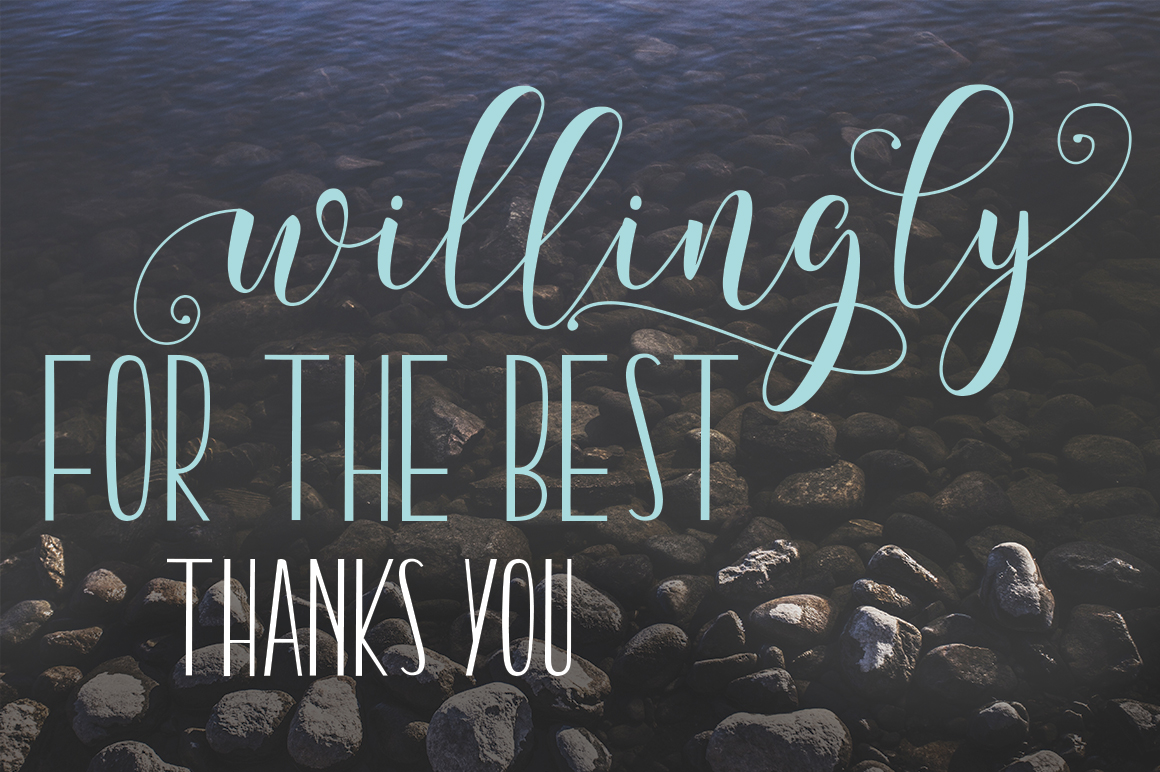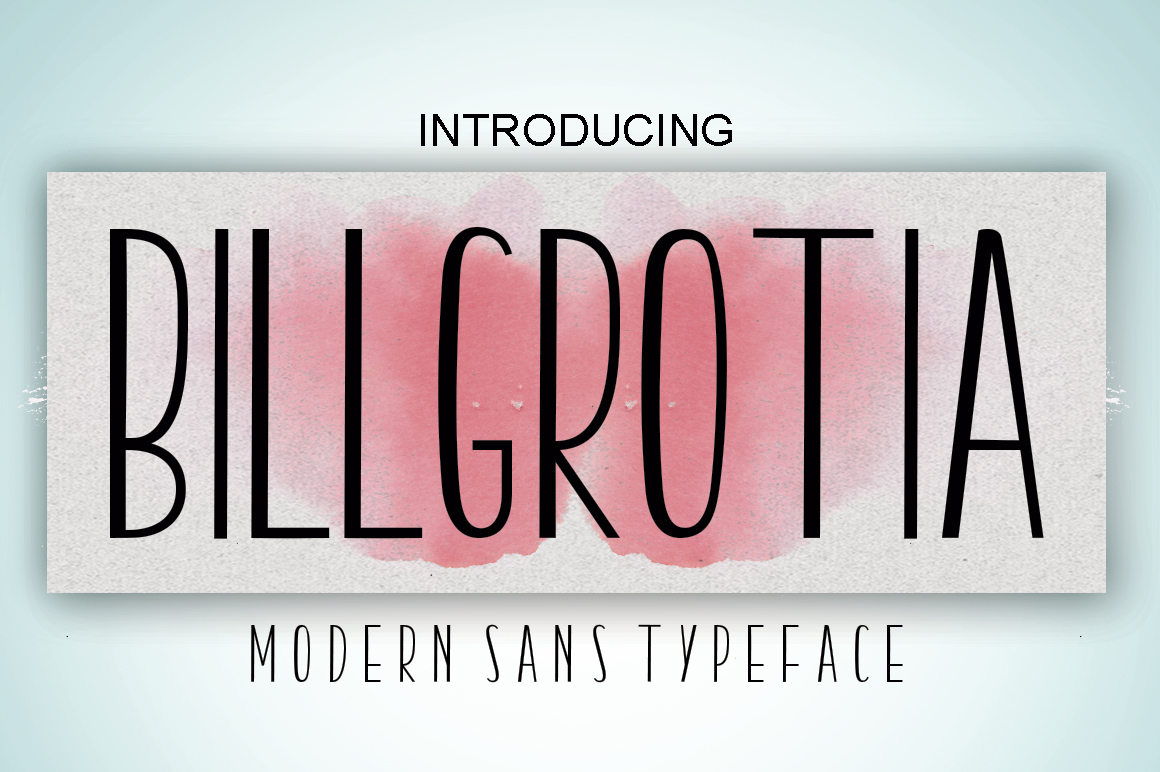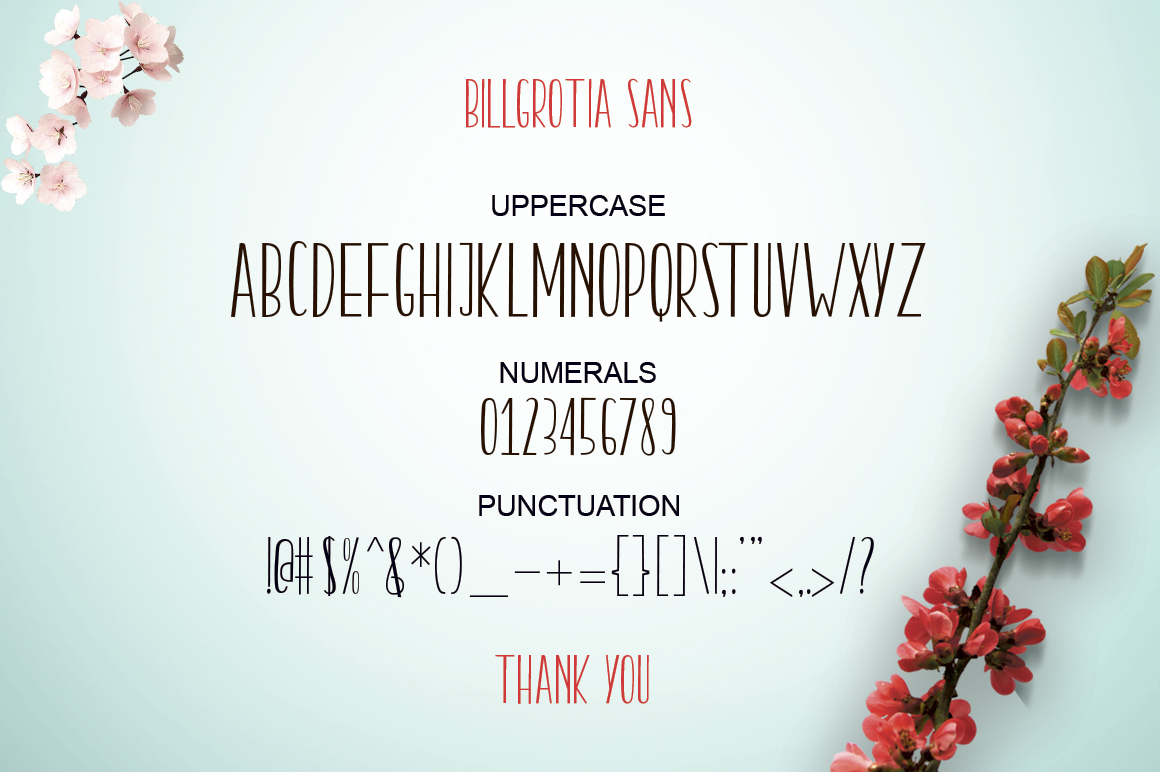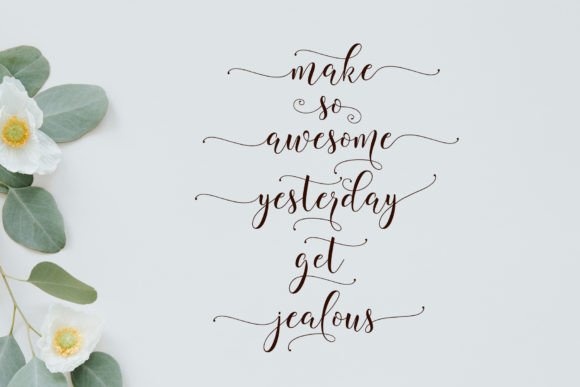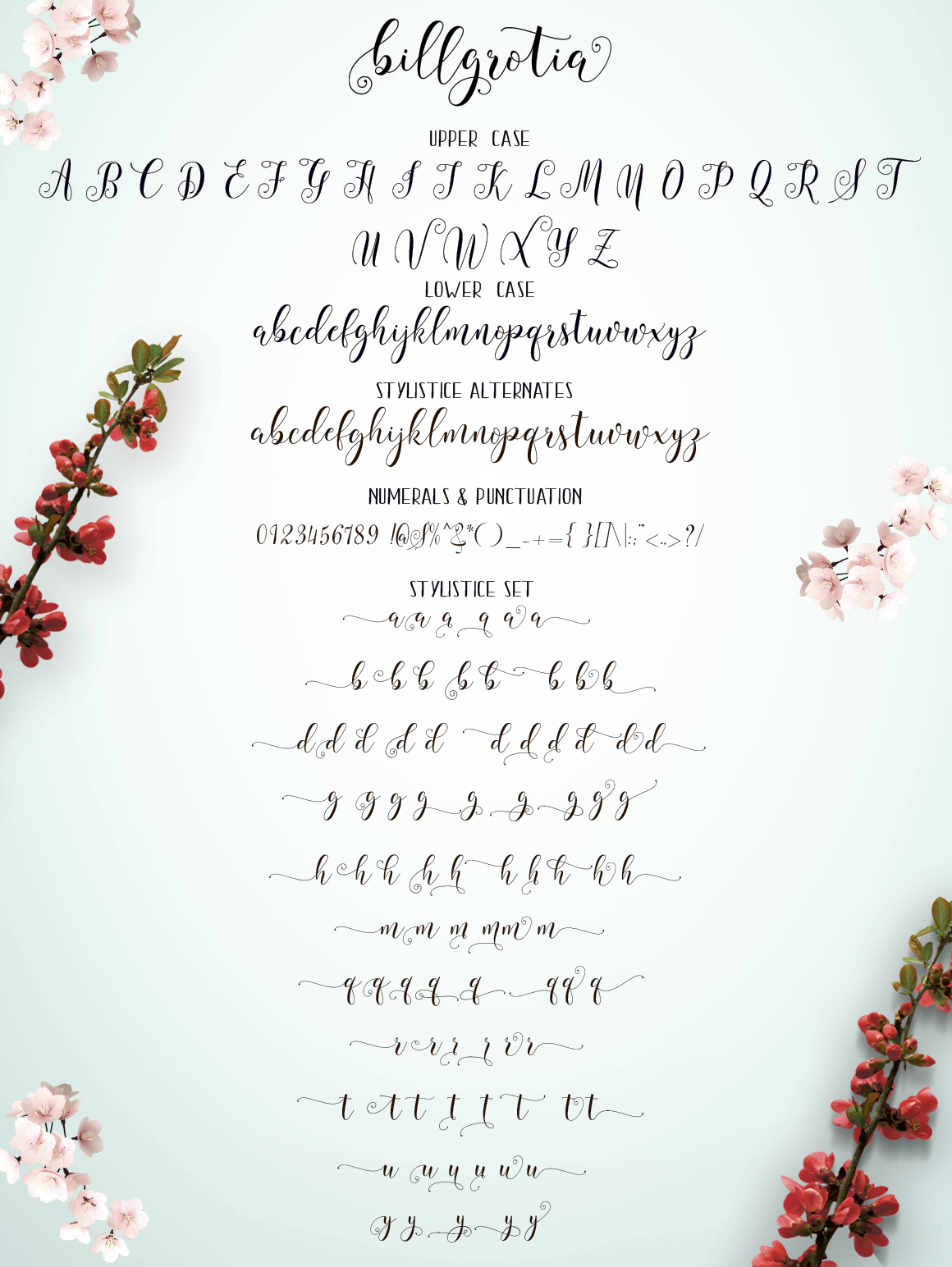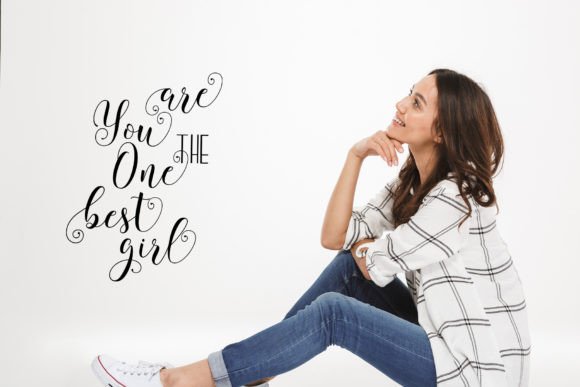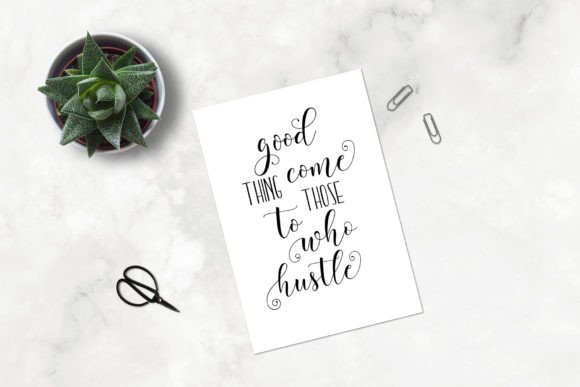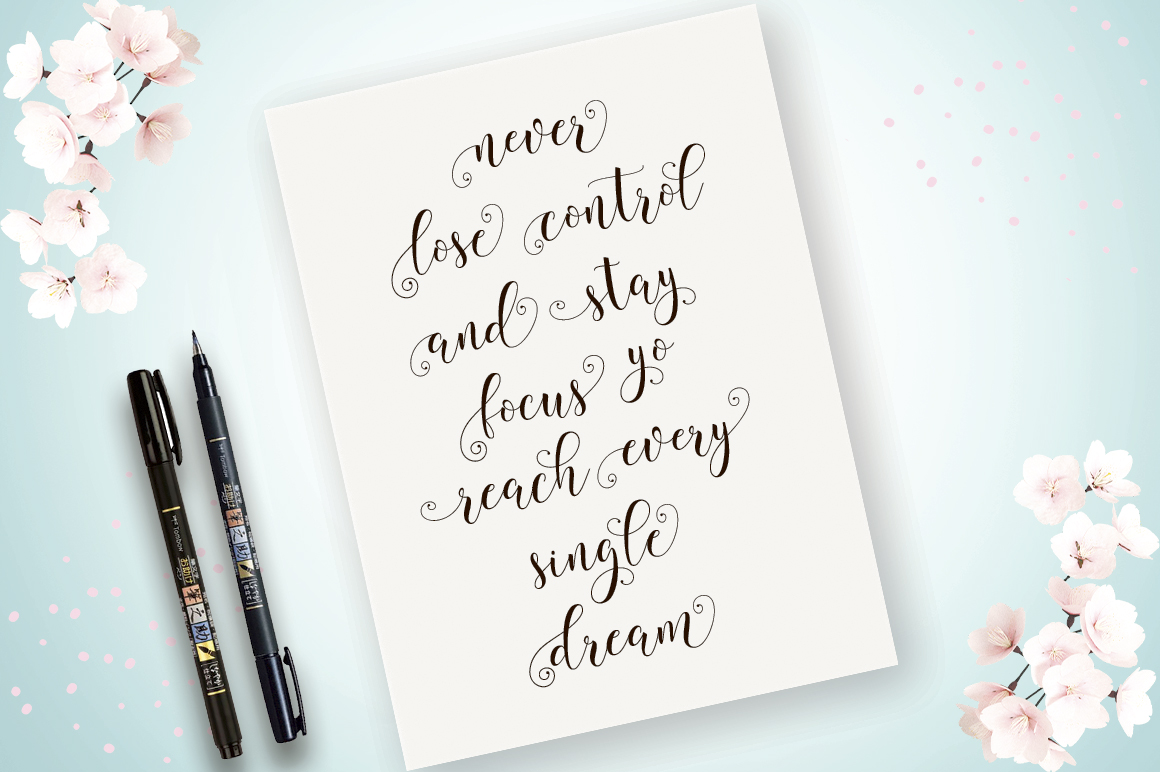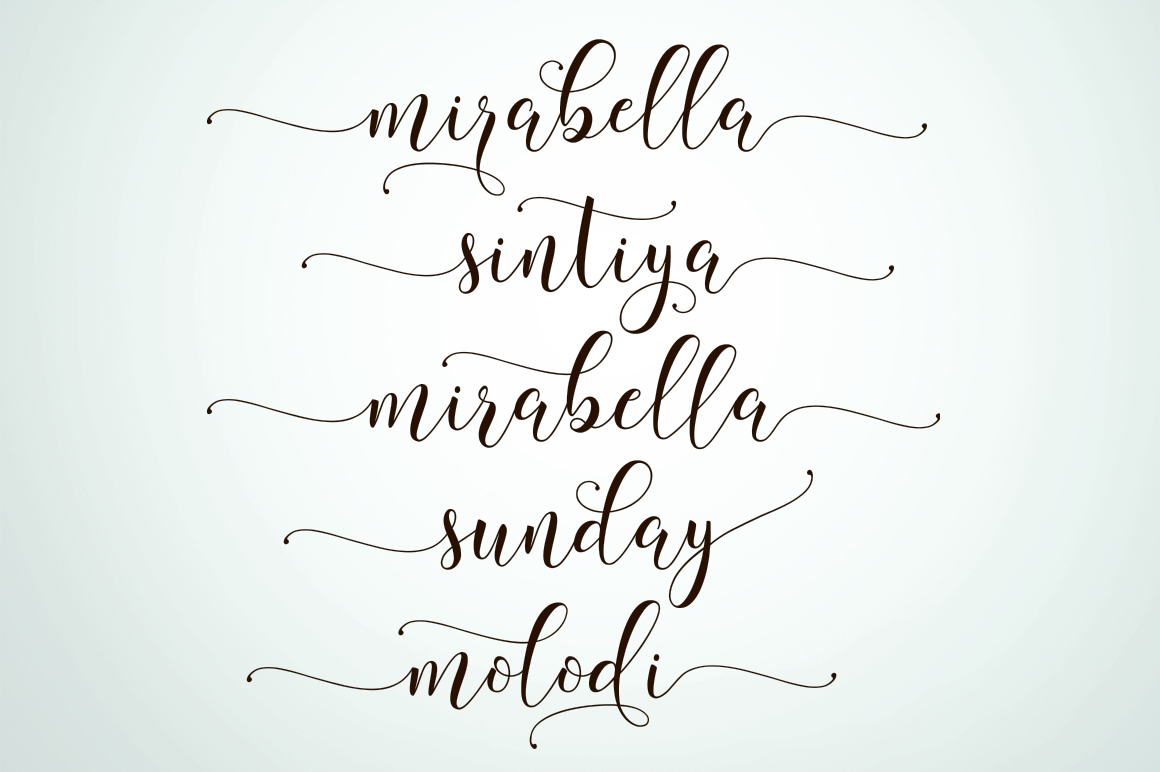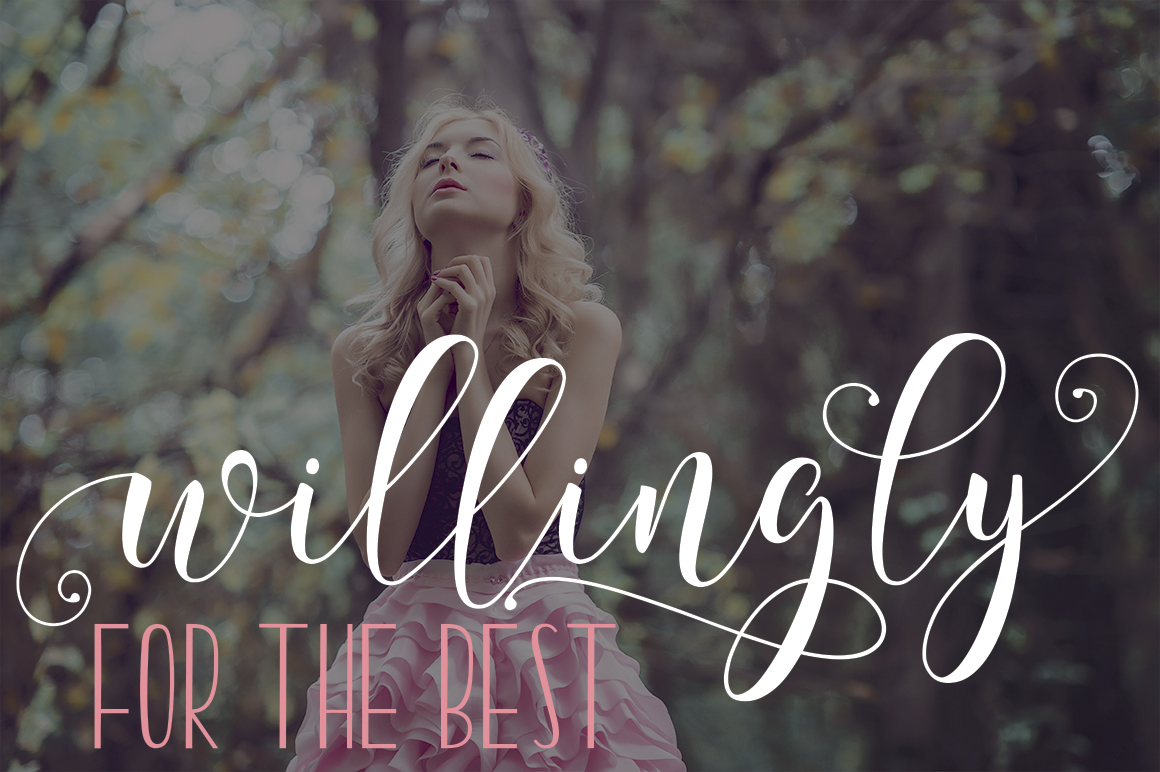
Billgrotia Script Font
About Billgrotia Script Font
Biillgrotia is an incredibly beautiful script with gorgeous grounds, furnished with fine lines and perfect for infinite purposes. This is a signature, decorative font that can amplify a wide range of designs.